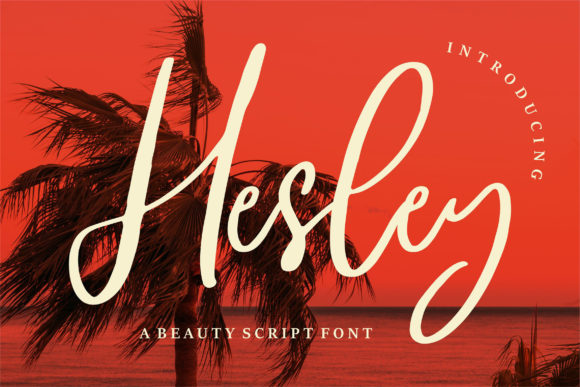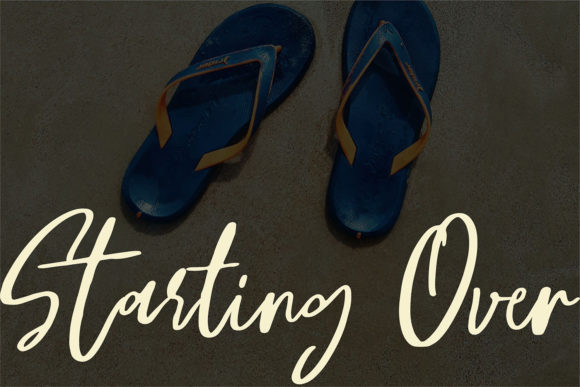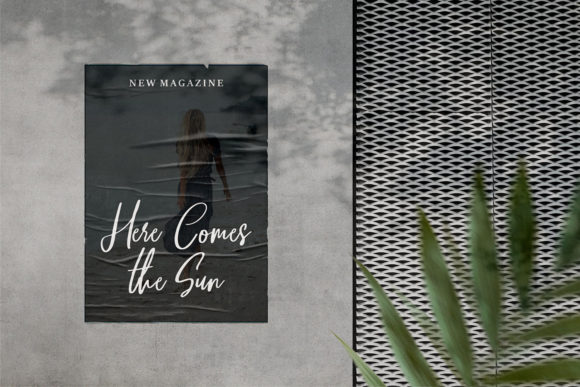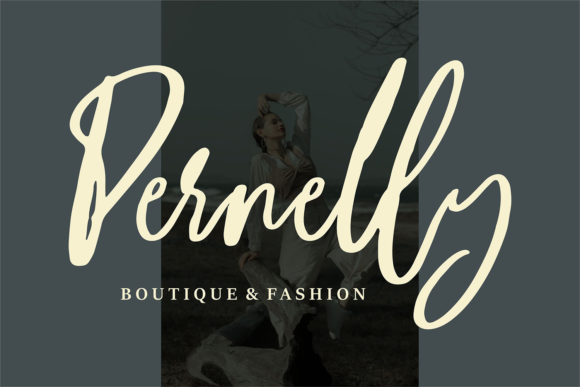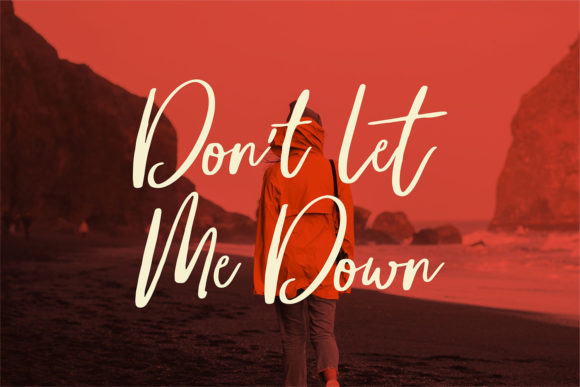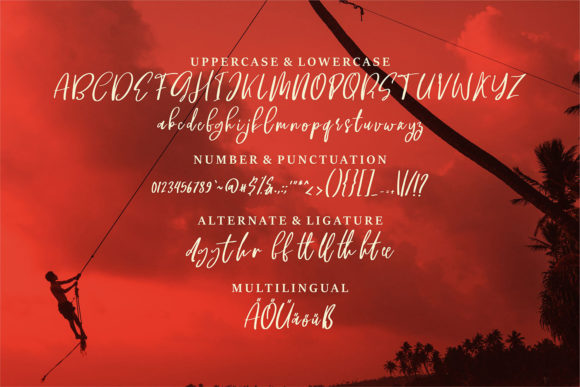
Hesley Font
About Hesley Font
Hesley is a chic, refined script font that emanates sophistication and elegance. Its stylish alternates and ligatures make this font the perfect match for any project.